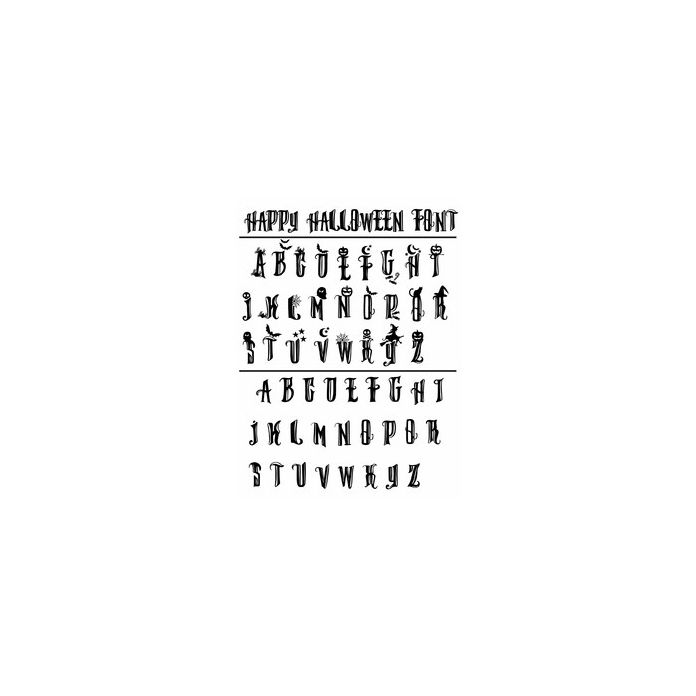
Happy Halloween Font consists of All Capital Letters which you can Mix and match to create funny and intriguing quotes. The small letters contain the letters with decorative elements and the capital letters display the alphabet without the decorative elements. It's very easy to change between the two styles.
For better application you can vectorise the phrase or the quote you want and better adjust the alignment of the letters and their spacing. Hope you have fun and Happy Halloween.